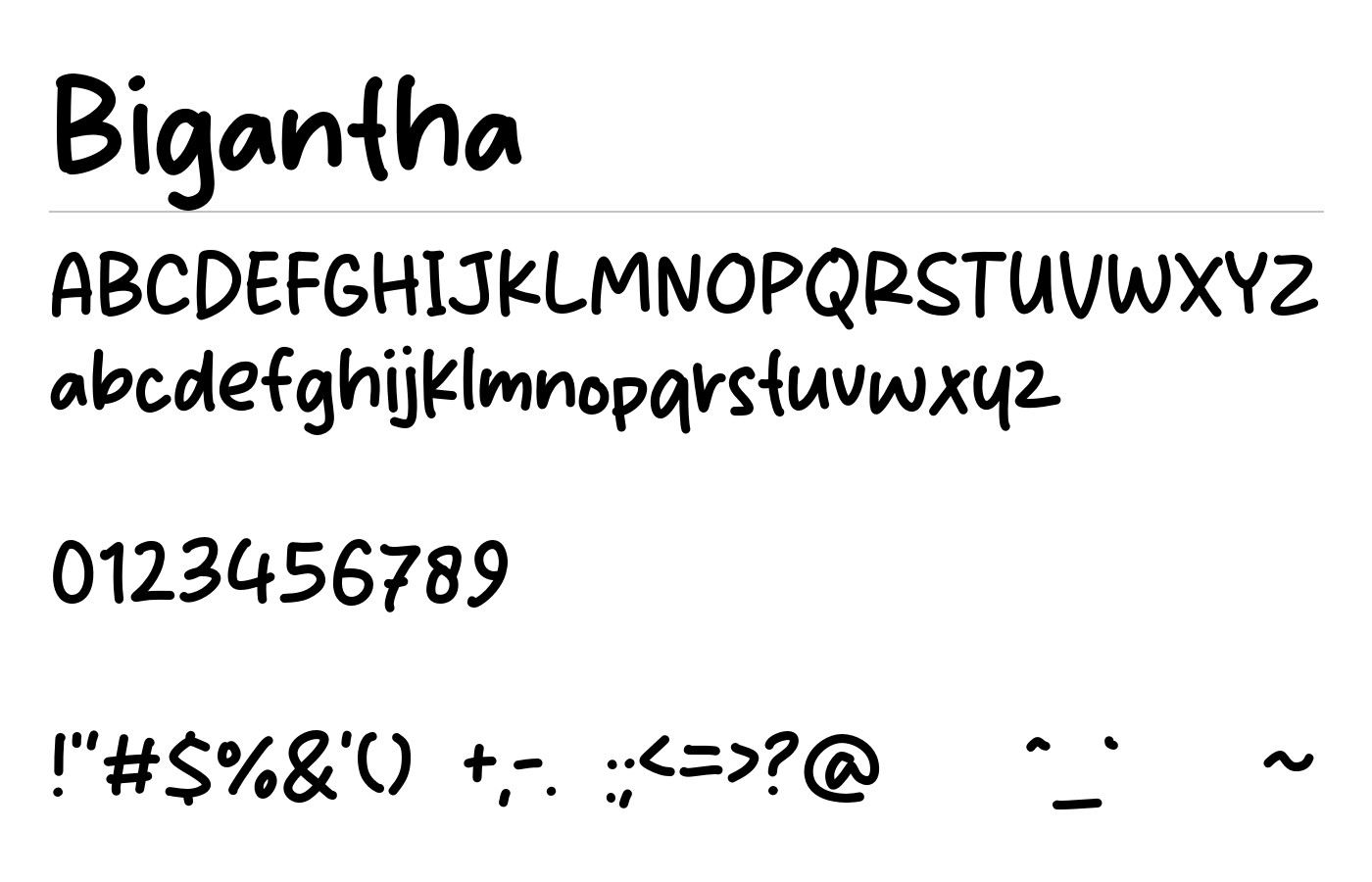
Bigantha is a playful and casual handwritten sans serif font featuring smooth, rounded strokes and a friendly, approachable style. Its consistent medium weight and open letterforms make it highly legible, perfect for informal branding, children's materials, or any design looking to convey warmth and personality. This font works well in headlines, logos, and creative projects where a personal, hand-crafted touch is desired.
Bigantha Font
About Bigantha Font